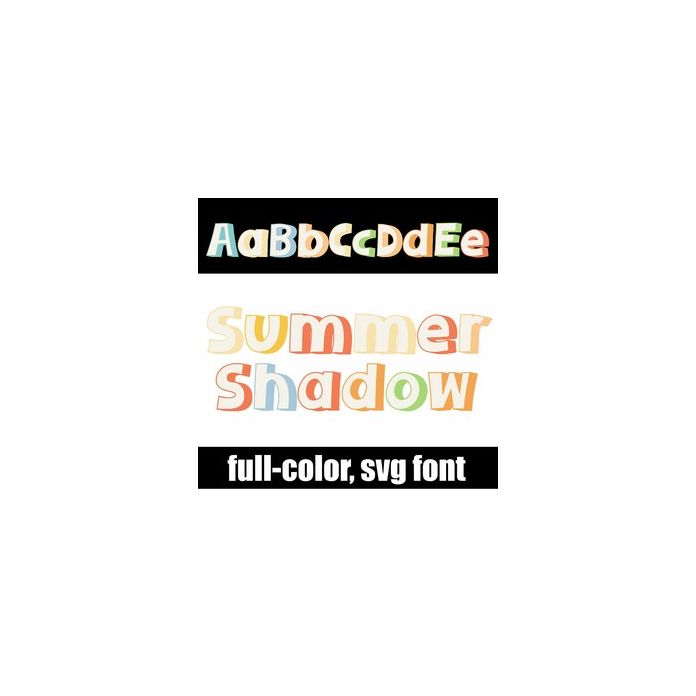
This full-color 3d font features a light cream letter with a summer color palette shadow. There is an alt case w/ additional colors you can access through your system or Silhouette's glyph map.